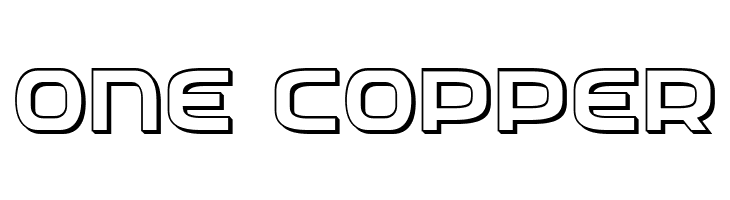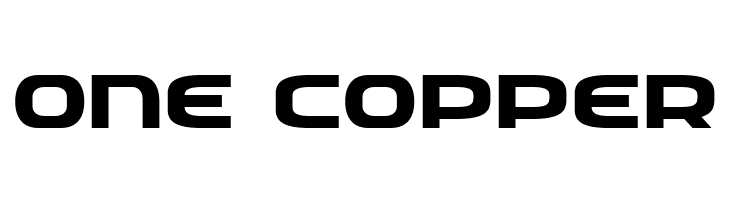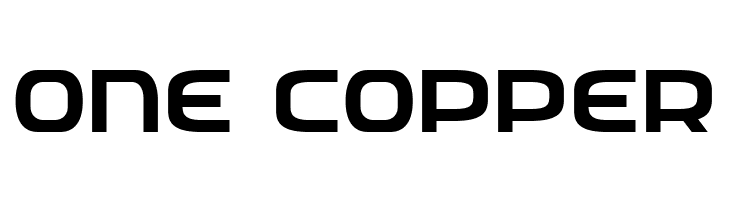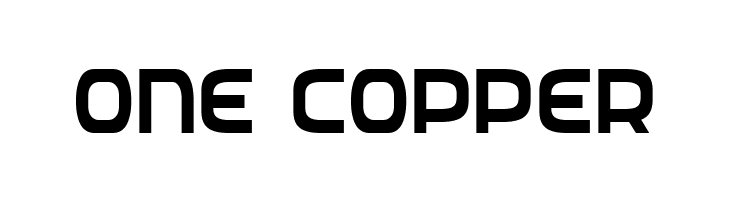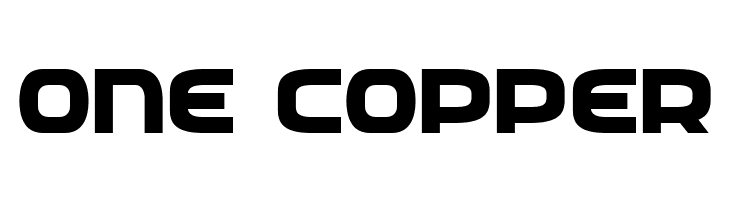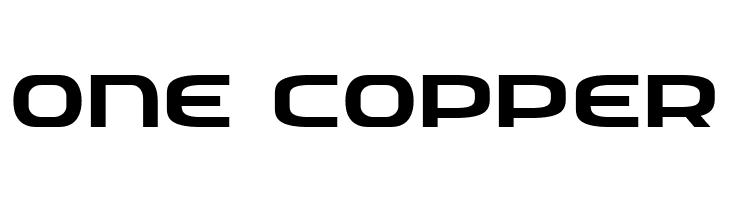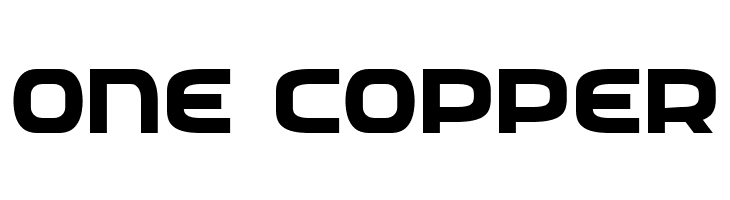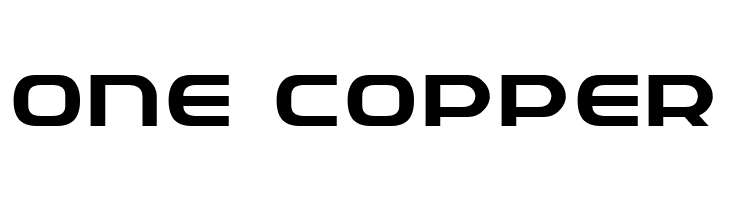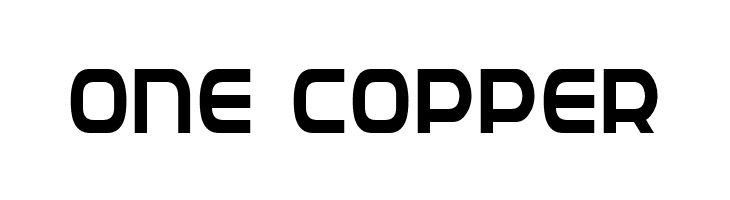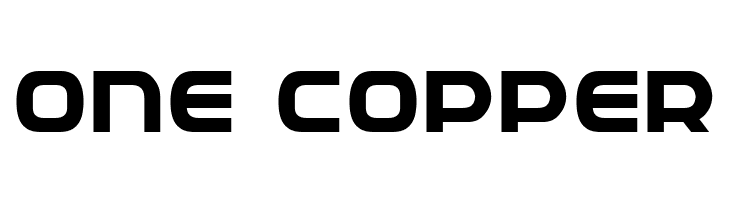
A bold, futuristic italic font with sharp angles and a dynamic style.
A bold, futuristic font with angular, geometric shapes and a strong presence.
A bold, geometric outline font with a futuristic and industrial aesthetic.
A bold, futuristic outline font with an italic slant and modern appeal.
A bold, geometric font with a futuristic and dynamic style.
A bold, futuristic font with scanline patterns and geometric shapes.
A futuristic, italicized font with a scanline effect and tight character spacing.
A bold, semi-italic font with a futuristic and dynamic style.
A modern, geometric font with bold, rounded characters.
A bold, geometric font with a 3D outline effect, perfect for modern designs.
A modern, 3D italic font with outlined characters and a futuristic style.
A bold, 3D italic font with outlined characters and a futuristic style.
A bold, geometric font with a 3D effect and outlined characters.
Bold, italicized font with a three-dimensional outline and geometric design.
A bold, geometric font with a three-dimensional outline effect, perfect for modern designs.
A bold, modern font with geometric shapes and rounded edges.
A bold, modern font with a geometric and slightly condensed design.
A bold, condensed, and italic font with a modern and dynamic style.
A bold, expanded font with a modern, geometric style.
A bold, expanded, and italicized font with a futuristic and sleek design.
A bold, italicized, and modern typeface with a dynamic and geometric design.
A bold, modern, and condensed geometric font.
A modern, condensed font with a bold, geometric style.
A modern, condensed, and italicized font with a sleek, geometric design.
A modern, condensed, and italicized font with a sleek, dynamic appearance.
A bold, modern font with expanded, geometric characters and consistent stroke thickness.
A modern, geometric font with bold, expanded characters and a futuristic aesthetic.
A bold, expanded font with a modern, geometric style.
A bold, italicized, and expanded typeface with a modern and dynamic style.
A modern, italicized font with expanded characters and medium contrast.
A modern, expanded italic font with a sleek and dynamic style.
A bold, modern font with a geometric and futuristic style.
A bold, geometric typeface with a modern and professional appearance.
A bold, italicized font with strong, angular lines and a dynamic slant.